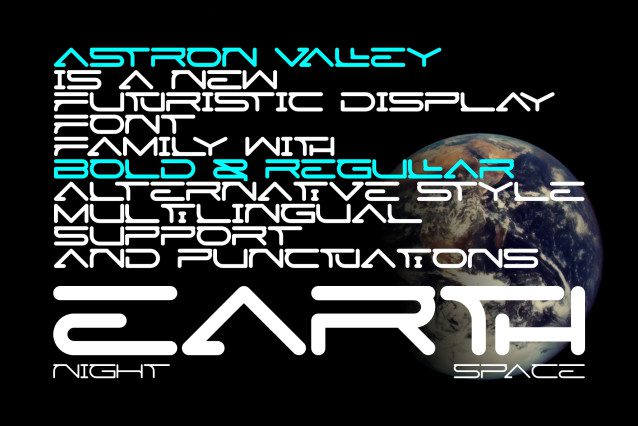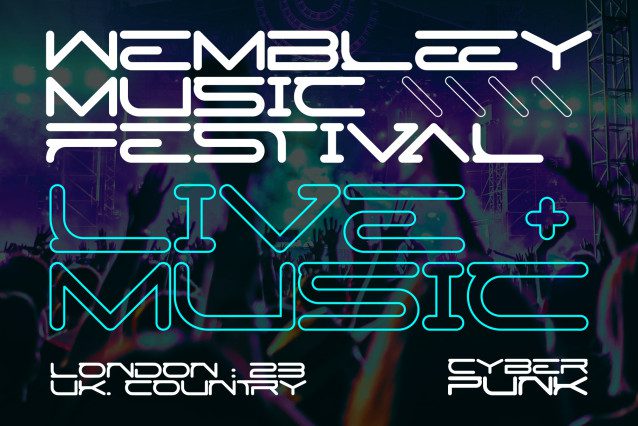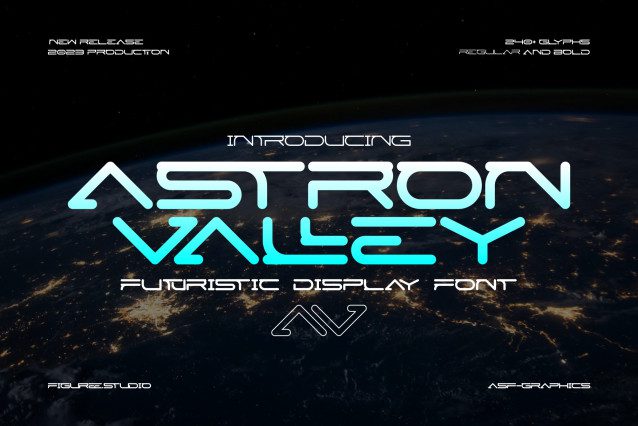
Astron Valley – Bold Font
Astron Valley – Bold Font – Futuristic Display Font for Modern VisionariesTypography defines the future of visual design. Astron Valley – Futuristic Display Font is built for creators who dream beyond the ordinary. With sleek geometric forms, bold strokes, and forward-thinking aesthetics, this futuristic display font is the perfect match for designers who want to make their work look cutting-edge, modern, and dynamic.
From tech startups to digital branding, Astron Valley gives every word an innovative edge. Its dual weights—Regular and Bold—allow endless creative flexibility for titles, posters, UI design, and futuristic branding.
Astron Valley stands as a modern symbol of progress. This futuristic display font blends clean lines, balanced proportions, and high-tech inspiration, making it ideal for logos, product packaging, and digital visuals that communicate sophistication and innovation.
Each letter is designed with precision, giving your text a forward-moving rhythm—perfect for brands that aim to project strength, technology, and modernity.